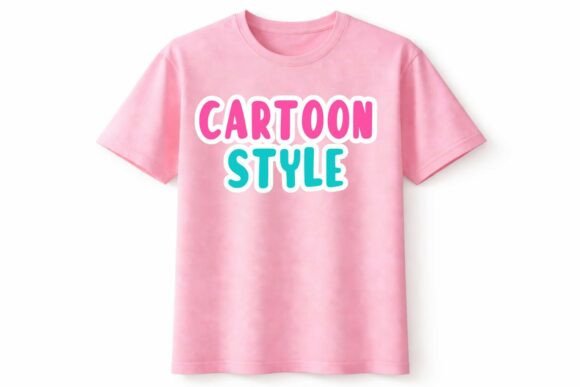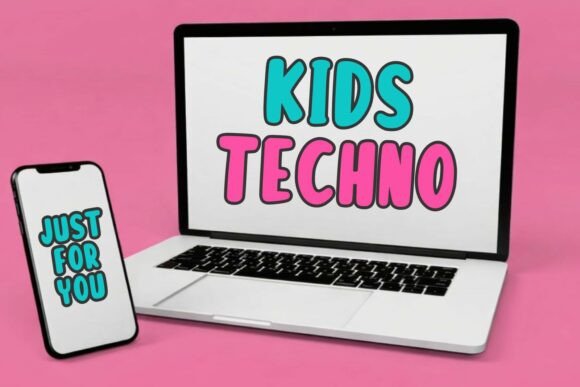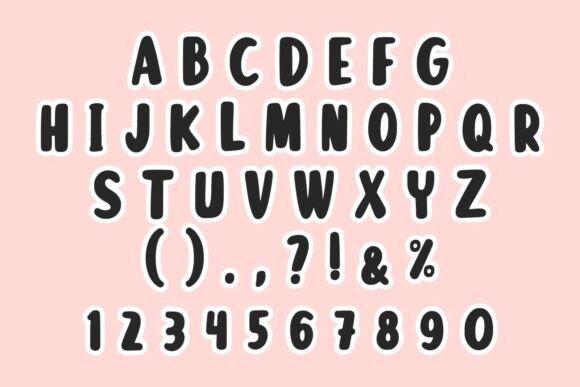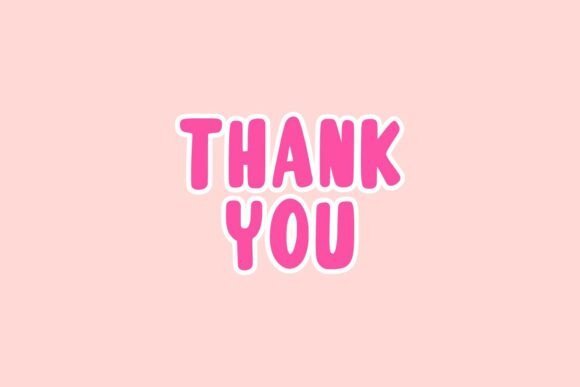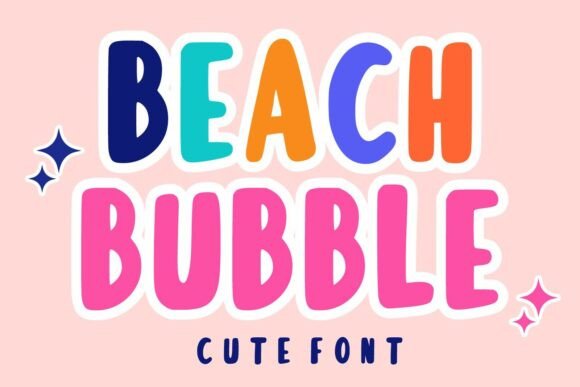
Introducing Beach Bubble Font: The Ultimate Choice for Fun and Playful Designs
Are you a designer or crafter looking for a font that can add a touch of fun and playfulness to your projects? Look no further than Beach Bubble Font! This adorable display font is perfect for creating bright, happy, and eye-catching typography with a modern, bubbly style.
What Makes Beach Bubble Font So Special?
Beach Bubble Font is a cute and playful display font that features rounded shapes and bold characters, making it ideal for a wide range of design projects. Its fun and cheerful vibe is perfect for kids’ designs, summer themes, beach projects, branding, posters, social media graphics, t-shirts, stickers, and more.
Perfect for Kids’ Designs and Summer Themes
Beach Bubble Font is a great choice for designers who want to create fun and playful designs for kids. Its bubbly style and rounded shapes make it perfect for children’s books, nursery rhymes, and kids’ party invitations. Additionally, its summer-themed vibe makes it ideal for designing posters, flyers, and social media graphics for summer camps, beach parties, and outdoor events.
Great for Beach Projects and Branding
If you’re looking for a font that can help you create beach-inspired designs, Beach Bubble Font is the perfect choice. Its fun and playful style is perfect for designing logos, branding materials, and marketing collateral for beach-related businesses, such as surf schools, beachwear stores, and coastal restaurants.
Key Features of Beach Bubble Font
- Cute and playful display font: Beach Bubble Font features a fun and bubbly style that’s perfect for creating eye-catching typography.
- Rounded shapes and bold characters: The font’s rounded shapes and bold characters make it perfect for kids’ designs, summer themes, and beach projects.
- Modern and playful look: Beach Bubble Font has a modern, playful look that’s perfect for designers who want to create bright, happy, and eye-catching typography.
- Multipurpose: The font is ideal for a wide range of design projects, including kids’ designs, summer themes, beach projects, branding, posters, social media graphics, t-shirts, stickers, and more.
How to Use Beach Bubble Font in Your Designs
- Kids’ designs: Use Beach Bubble Font to create fun and playful designs for kids, such as children’s books, nursery rhymes, and kids’ party invitations.
- Summer themes: Use the font to create posters, flyers, and social media graphics for summer camps, beach parties, and outdoor events.
- Beach projects: Use Beach Bubble Font to design logos, branding materials, and marketing collateral for beach-related businesses.
- T-shirts and stickers: Use the font to create fun and playful designs for t-shirts, stickers, and other promotional products.
Why Choose Beach Bubble Font?
Beach Bubble Font is a great choice for designers and crafters who want to add a touch of fun and playfulness to their designs. Here are just a few reasons why:
- Unique and eye-catching: Beach Bubble Font is a unique and eye-catching font that’s sure to grab attention.
- Multipurpose: Beach Bubble Font is ideal for a wide range of design projects, making it a great addition to any design library.
| Font Name | Beach Bubble Font |
| Author | mardanimirza12 |
Beach Bubble Font is a fun and playful display font that’s perfect for designers and crafters who want to add a touch of fun and playfulness to their designs. With its rounded shapes, bold characters, and modern, playful look, it’s ideal for a wide range of design projects, including kids’ designs, summer themes, beach projects, branding, posters, social media graphics, t-shirts, stickers, and more. So why wait? Download Beach Bubble Font today and start creating bright, happy, and eye-catching typography for your designs!